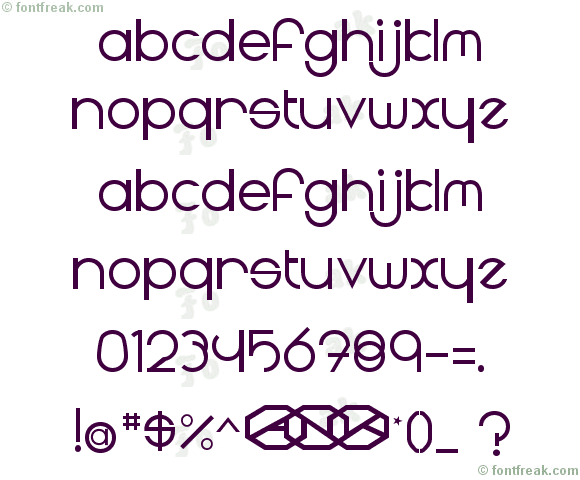
Radii
About Radii
The Radii font by Austin Kurowski is a striking sans-serif typeface that captures attention with its unique design elements. Characterized by its smooth, rounded strokes and balanced proportions, Radii exhibits a modern aesthetic that blends approachability with sophistication. The font features a consistent stroke weight, creating a harmonious look, while its subtle contrast adds depth without overwhelming the viewer. The spacing is well-considered, providing optimal legibility, making it suitable for a variety of applications.
This versatile font is ideal for several use cases. It can elevate wedding invitations with its elegant simplicity, making the special day feel even more memorable. For graphic designers, Radii is perfect for creating eye-catching movie posters that require a contemporary touch. Restaurant menus can greatly benefit from the font's clarity and style, appealing to patrons looking for a chic dining experience. Additionally, small business owners can use Radii for branding materials, such as business cards and promotional flyers, to convey a modern and professional image. Content creators will find it an excellent choice for web design, ensuring that their digital content stands out.
Targeted primarily at graphic designers, small business owners, and content creators, the Radii font free download offers accessible design options without compromising quality. Its unique visual characteristics not only enhance readability but also bring a fresh perspective to various projects. What sets Radii apart is its ability to seamlessly integrate into different design contexts while maintaining a distinct personality. Embracing both modernity and clarity, this typeface is sure to leave a lasting impression on audiences and elevate any creative endeavor.